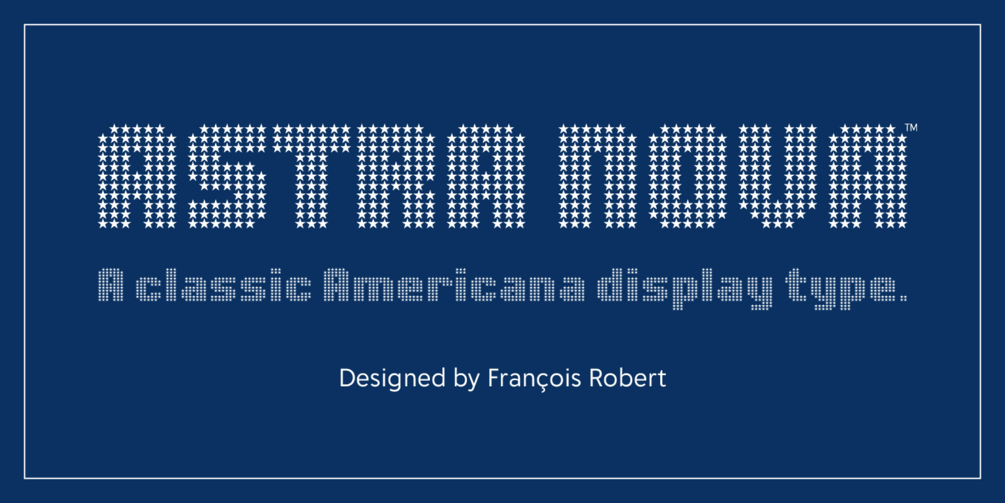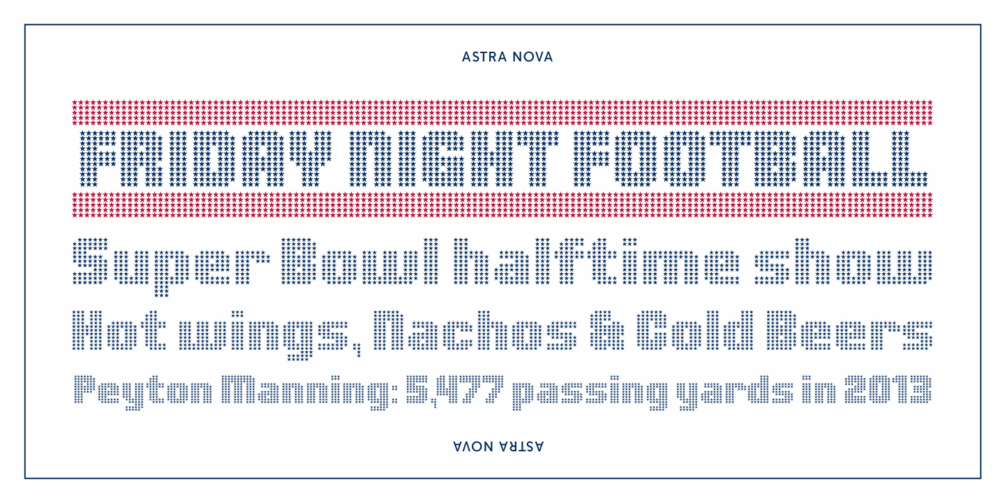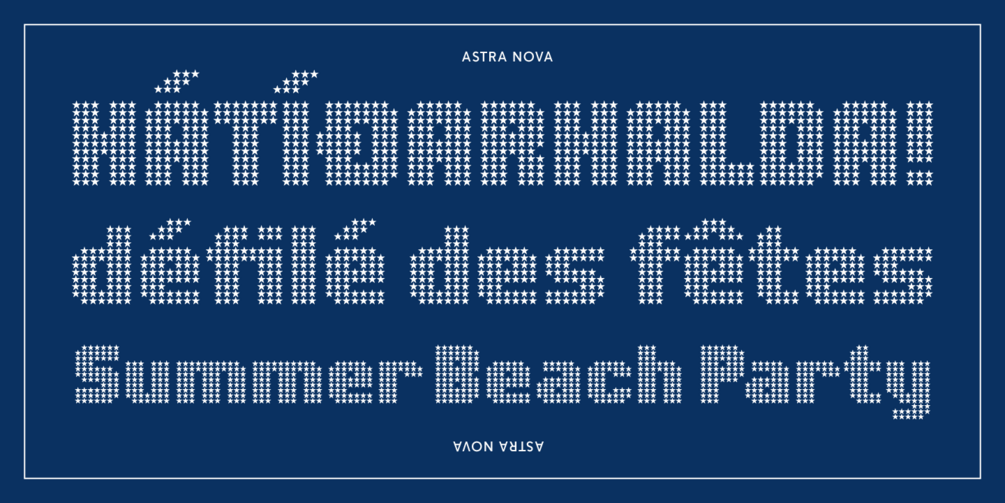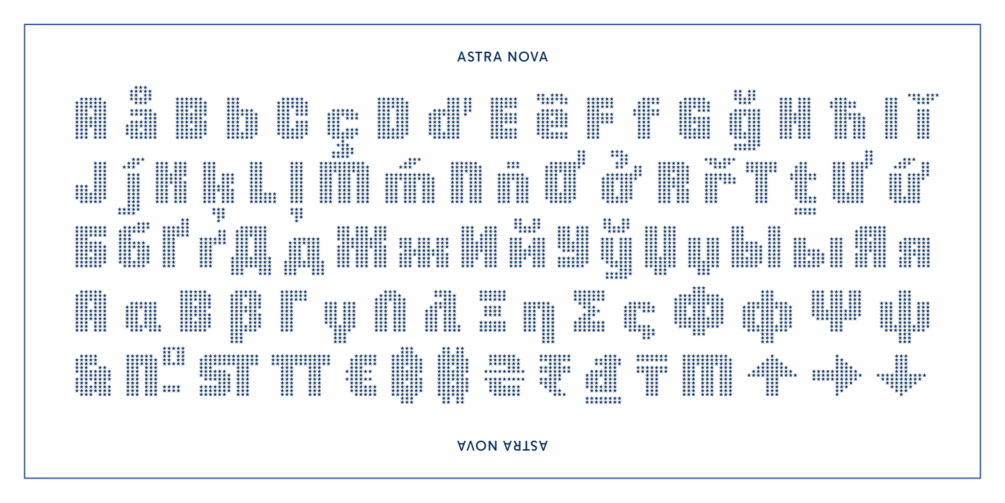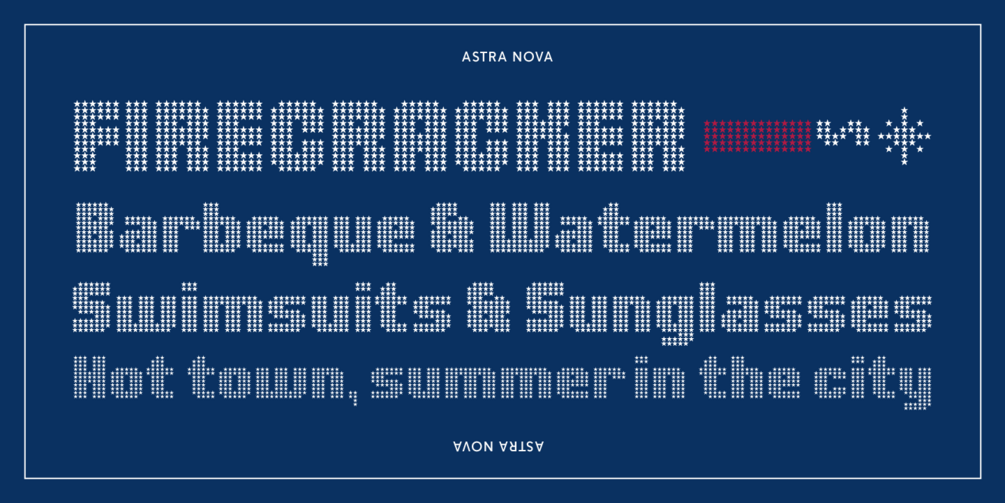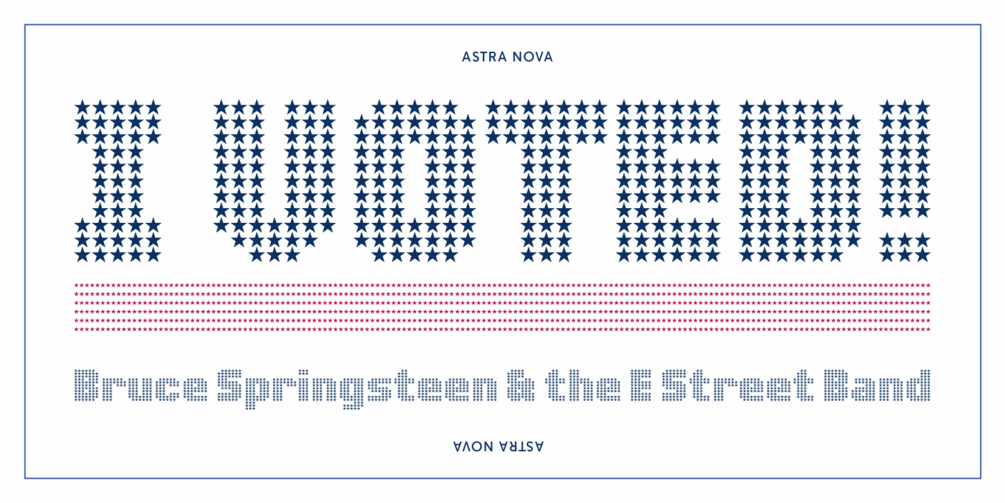
Astra Nova is a revitalized classic Americana typeface by François Robert. Following his typeface Baudot, Astra Nova was first introduced in 1969 under the name “Astra” in the rub-down type (dry transfer) format. This iconic display type is now available as a 21st Century digital font ready to once again perform its duty inspiring hope and positivity.
Similar to Robert’s typeface “Baudot”, the visual concept of this design is letterforms comprised of smaller units on a grid (like pixels) and also channels his admiration for the best aspects of American culture. This new version was carefully engineered to precisely reproduce the subtle vertical overlapping grid of Robert’s original design while also greatly expanding the glyph repertoire to field 993 glyphs.
Astra Nova supports 442 languages including Vietnamese and Greek, plus broad support for Afrikan and Oceanian languages. Handy Opentype features such as ligatures (standard and discretionary), fractions, stylistic alternates, and smart Roman numerals are built in to ease access and help make your typography sparkle. You’ll also find a selection of useful symbols and shapes for assembling borders and other elements to apply the same aesthetic to other areas of a layout.
Use Astra Nova extra large to add pizzazz to headlines and titles on posters, logos, book covers, album covers, and as big drop caps in a page layout.